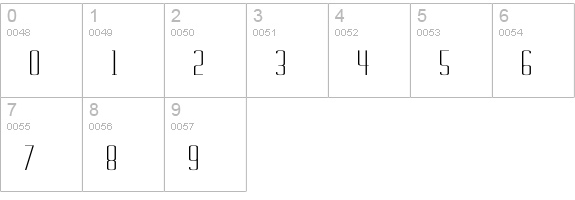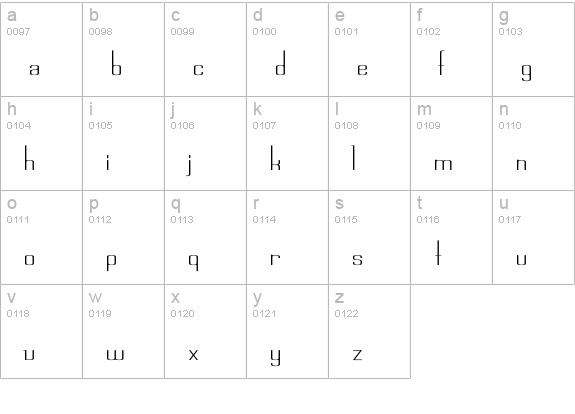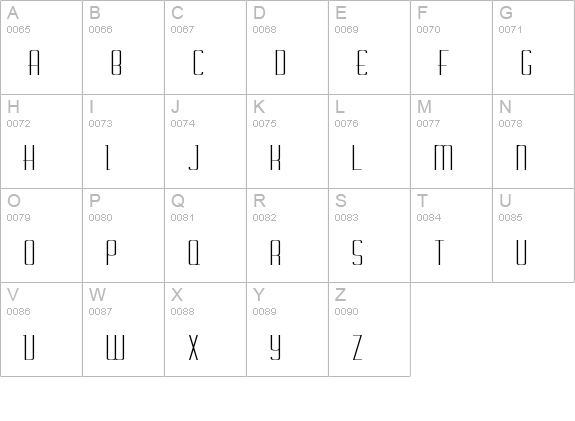
Rschasline Ex Font Details
Rschasline Ex font is a modern and stylish typeface that exudes elegance and sophistication. With its clean lines and distinctive curves, this font is perfect for adding a touch of class to any design project. The sleek and professional look of Rschasline Ex font makes it suitable for a wide range of applications, from branding and advertising to web design and print materials. What sets Rschasline Ex font apart is not only its exceptional design but also the fact that it is available for free download at FontsMarket.com. This means that you can enhance your projects with this high-quality font without any cost. Whether you are a professional designer or a hobbyist looking to elevate your creations, Rschasline Ex font is a valuable tool that is easily accessible to everyone. Download this exquisite font today and take your designs to the next level.